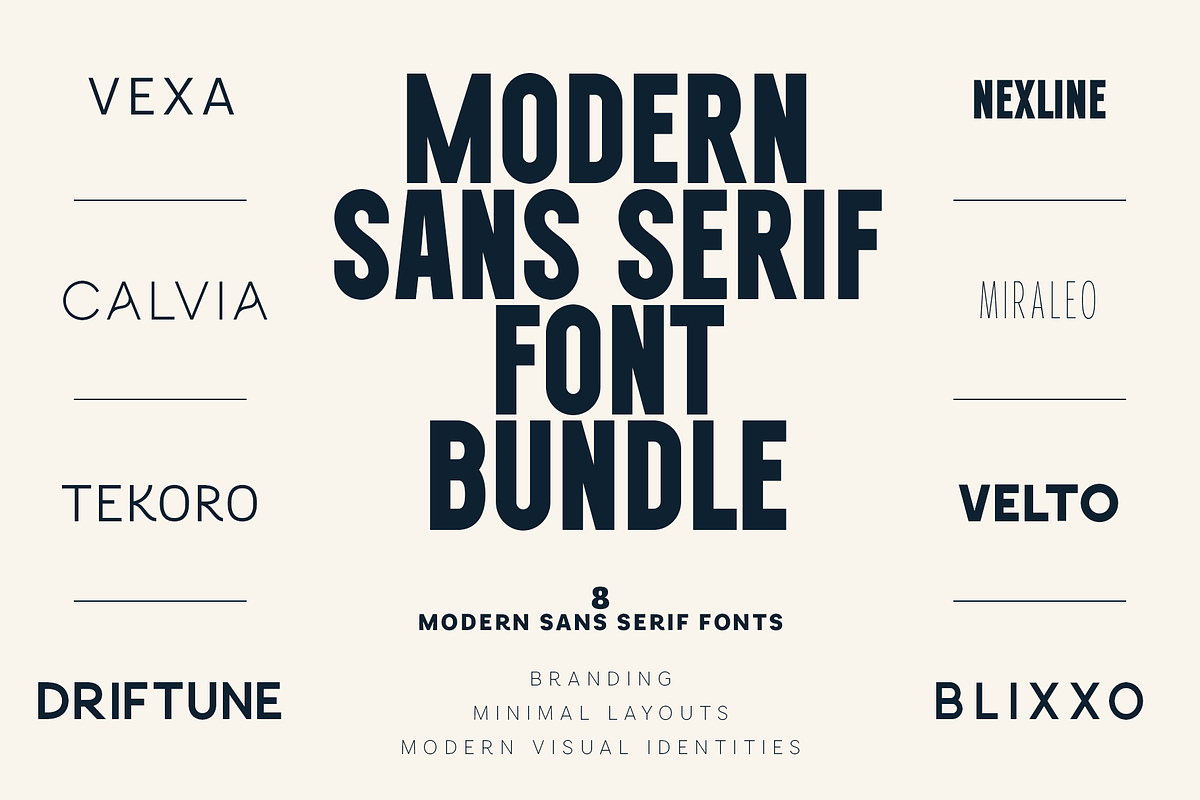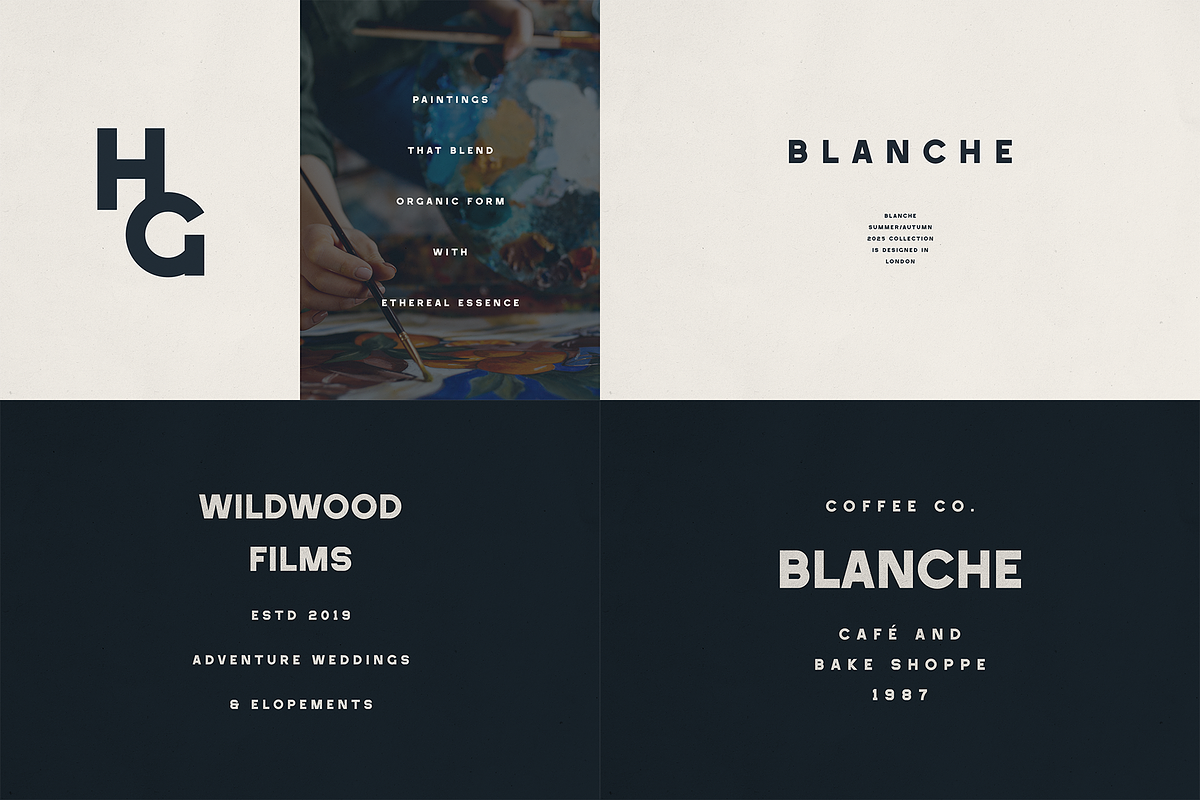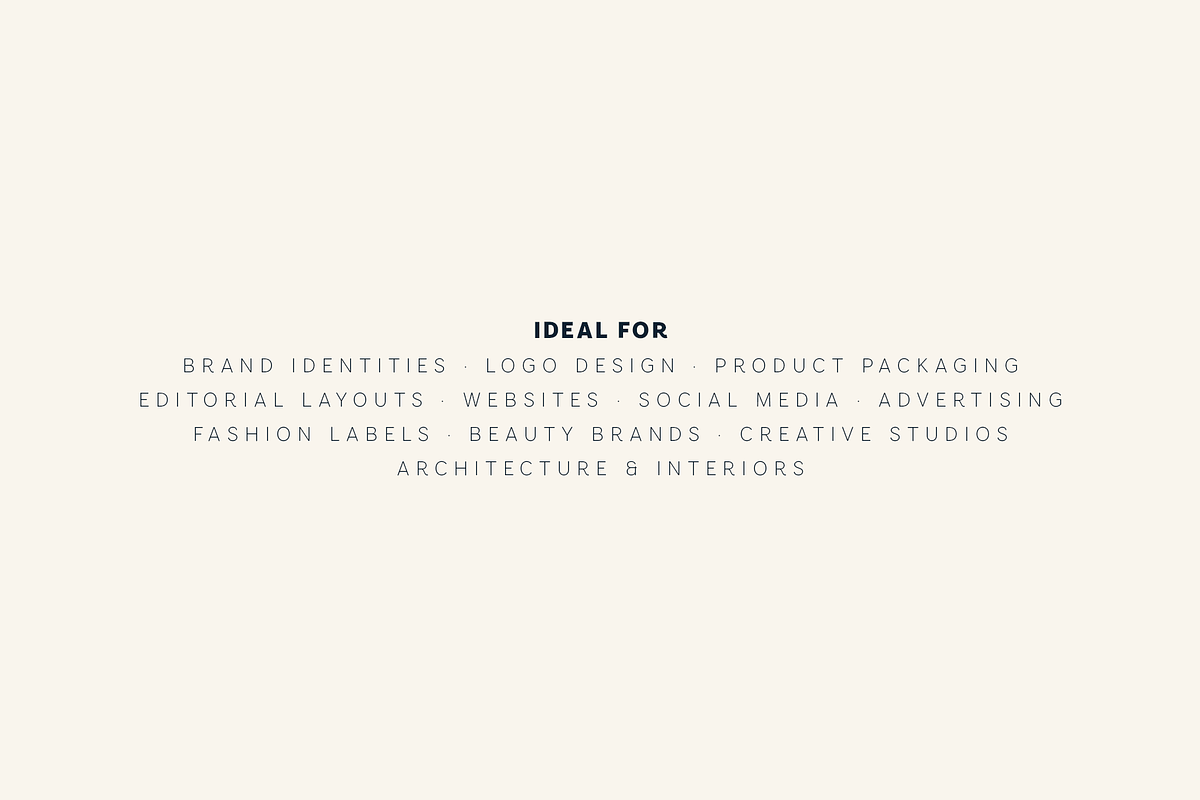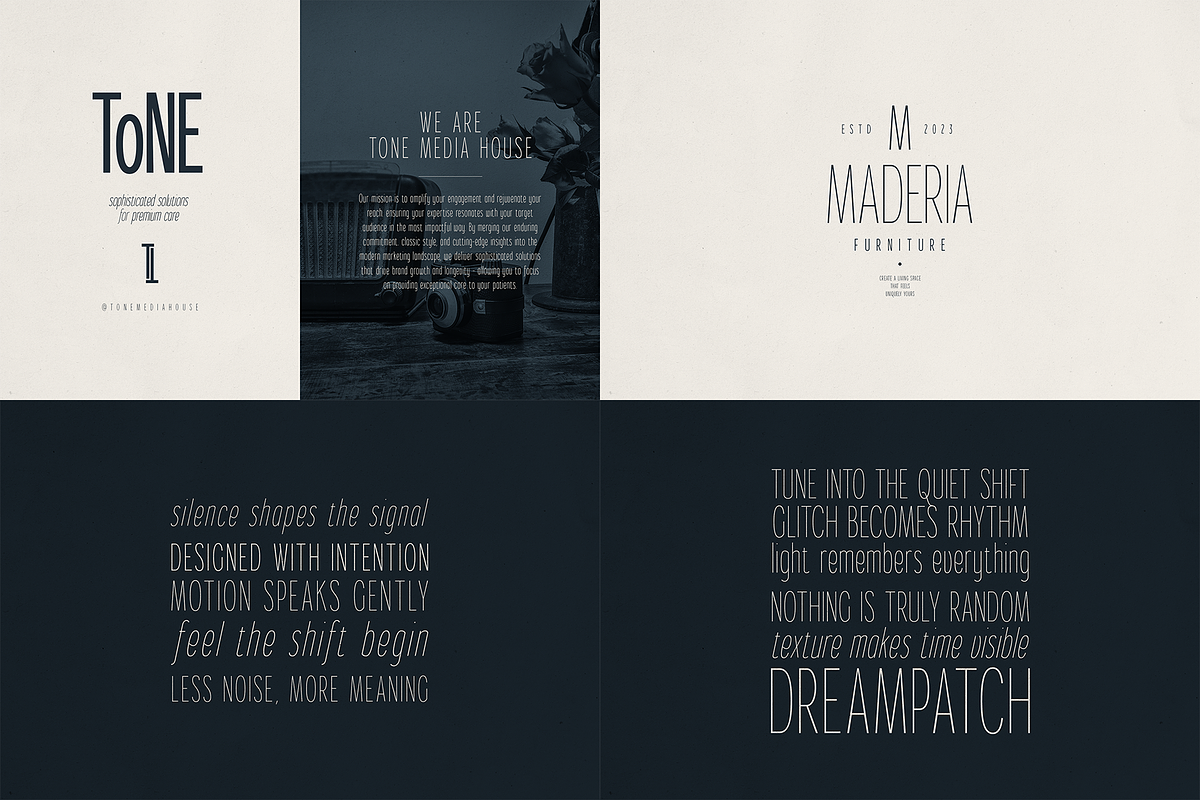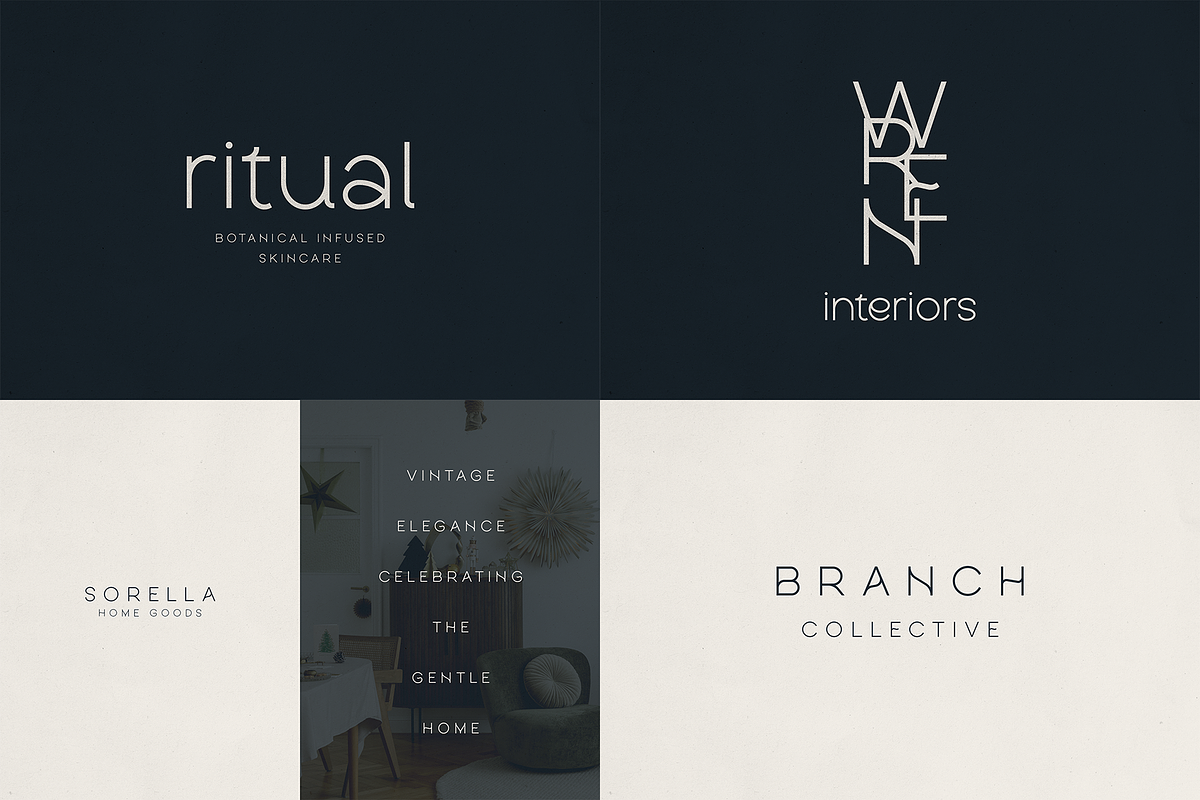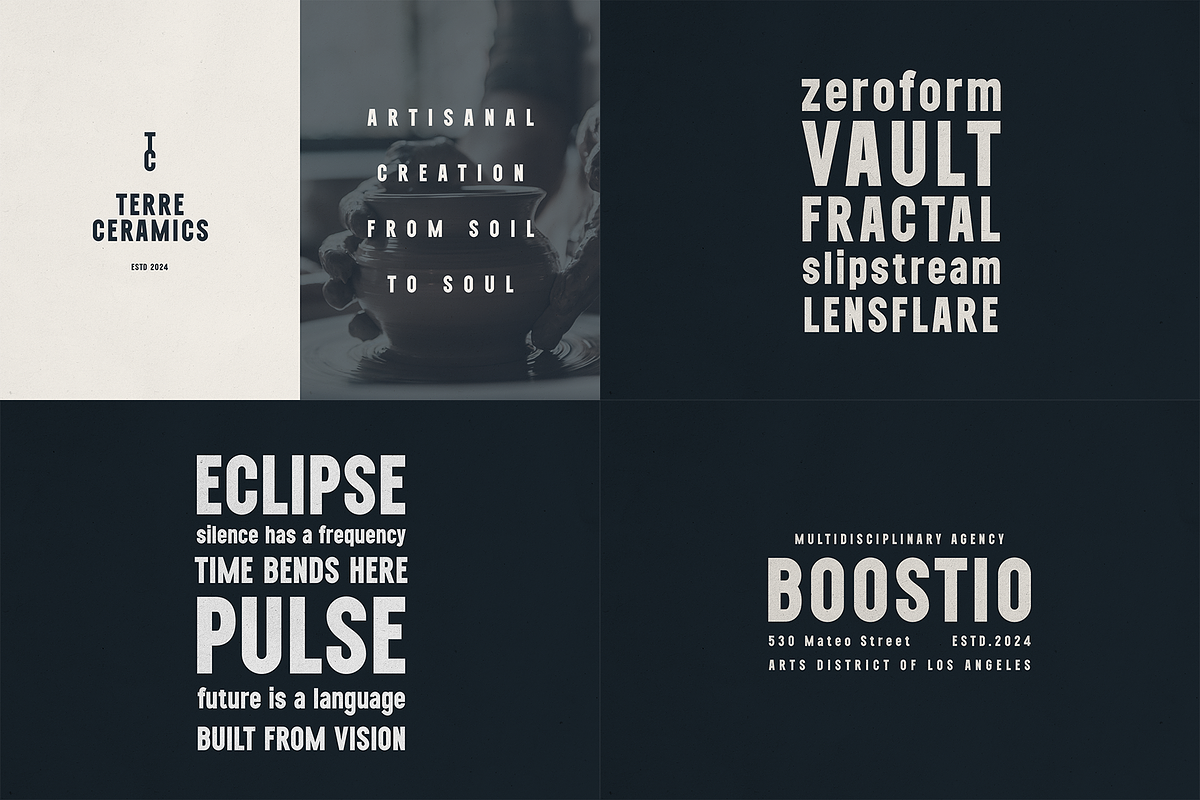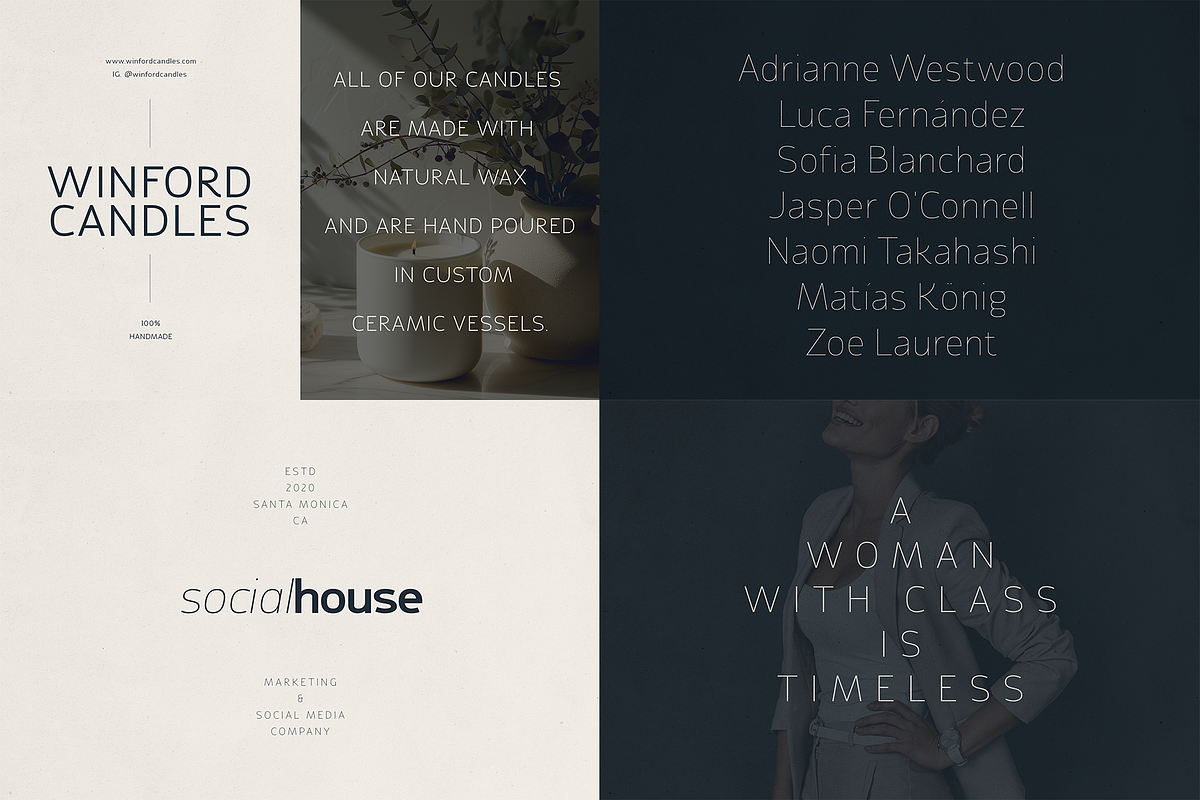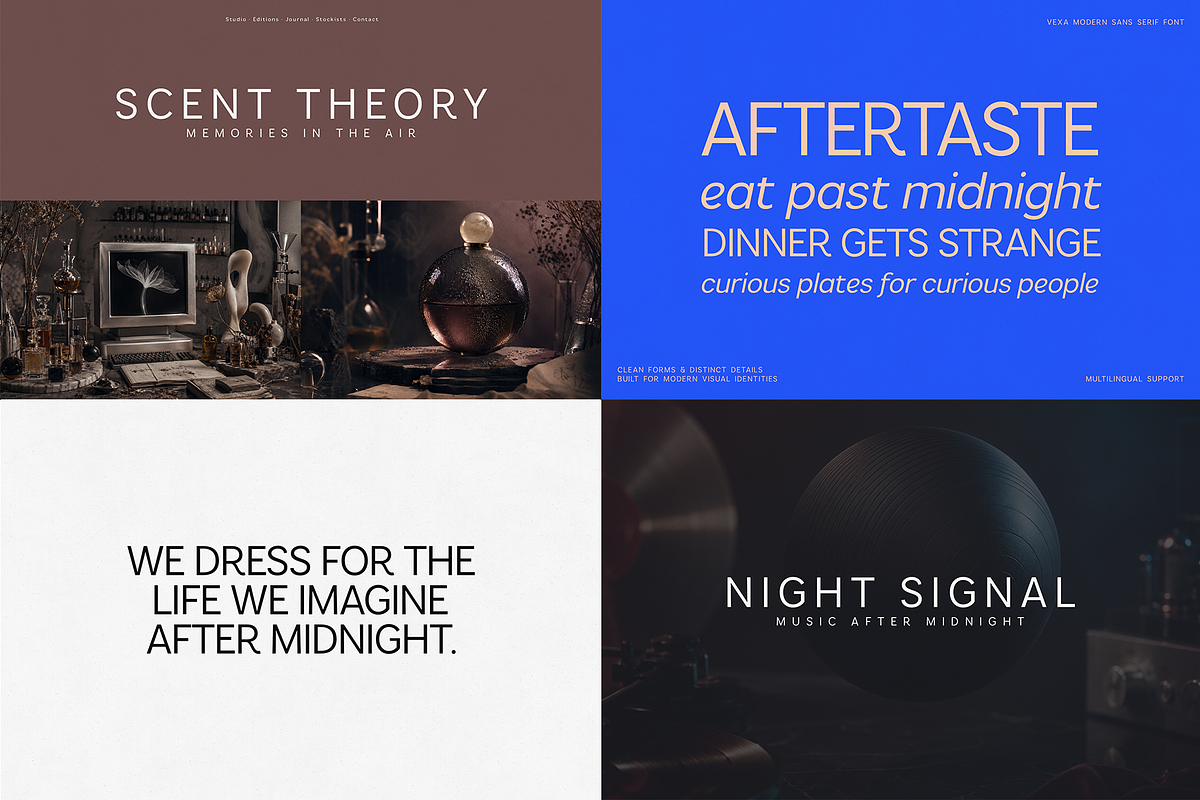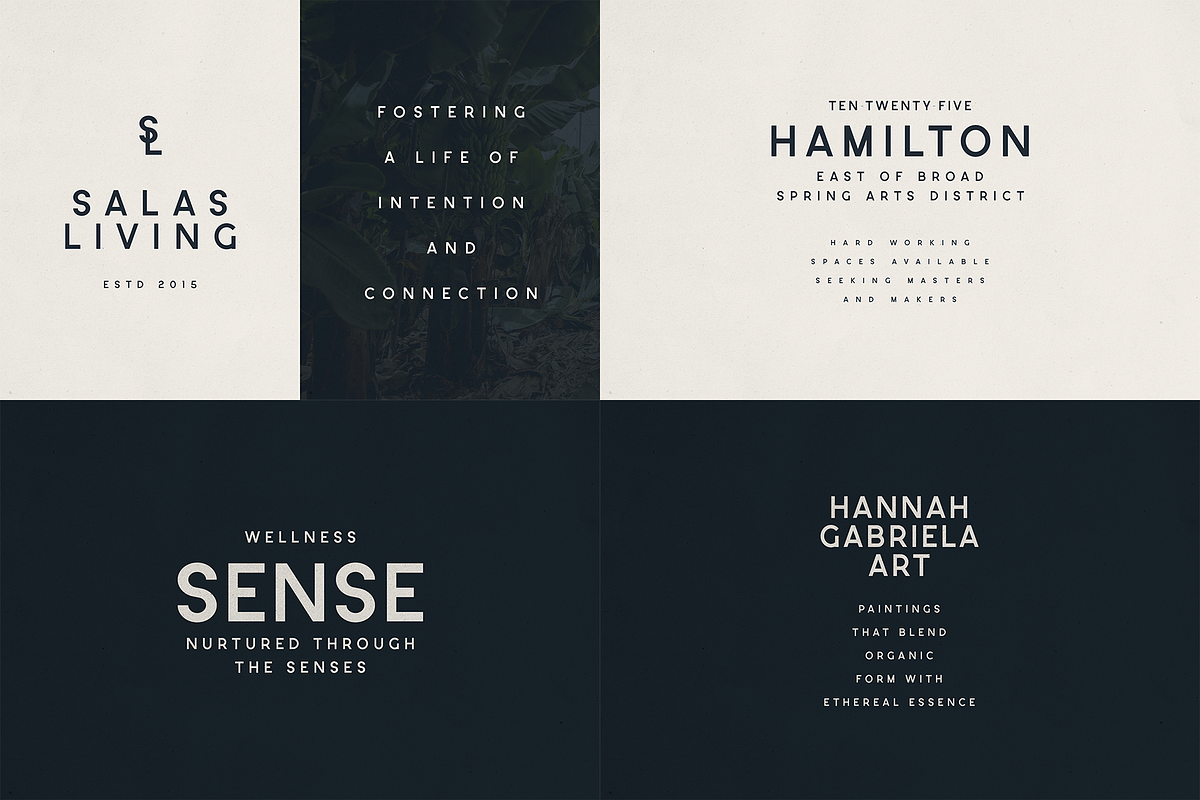
Modern Sans Serif Font Bundle
he Modern Sans Serif Font Bundle brings together 8 distinctive sans serif fonts for branding, logo design, packaging, and editorial layouts. From fine, airy letterforms to bold condensed headlines, this collection gives you a range of styles for shaping a brand’s personality.
Clean geometry, expressive curves, and varied proportions make the bundle a versatile addition to your font collection. Create a delicate skincare wordmark, a striking fashion campaign, a contemporary restaurant identity, or a minimal portfolio. Explore different directions for each project while keeping your typography considered and cohesive.
Included fonts: Vexa, Calvia, Tekoro, Driftune, Nexline, Miraleo, Velto, and Blixxo.
Use the lighter designs for spacious compositions and elegant branding, or choose the heavier, narrower forms for prominent headlines and compact layouts. The collection offers options for both subtle typography and designs where the lettering takes centre stage.
Ideal for:
Logo design, wordmarks, and brand identities
Beauty, skincare, fragrance, and wellness packaging
Fashion labels, lookbooks, and magazine layouts
Architecture studios, interior design, and homeware brands
Restaurant identities, café menus, and product labels
Posters, advertising, website headings, and social media graphics
Whether you’re exploring concepts for a client or developing your own visual identity, these eight modern sans serif fonts give you more ways to find the right tone—from understated and elegant to bold and direct.